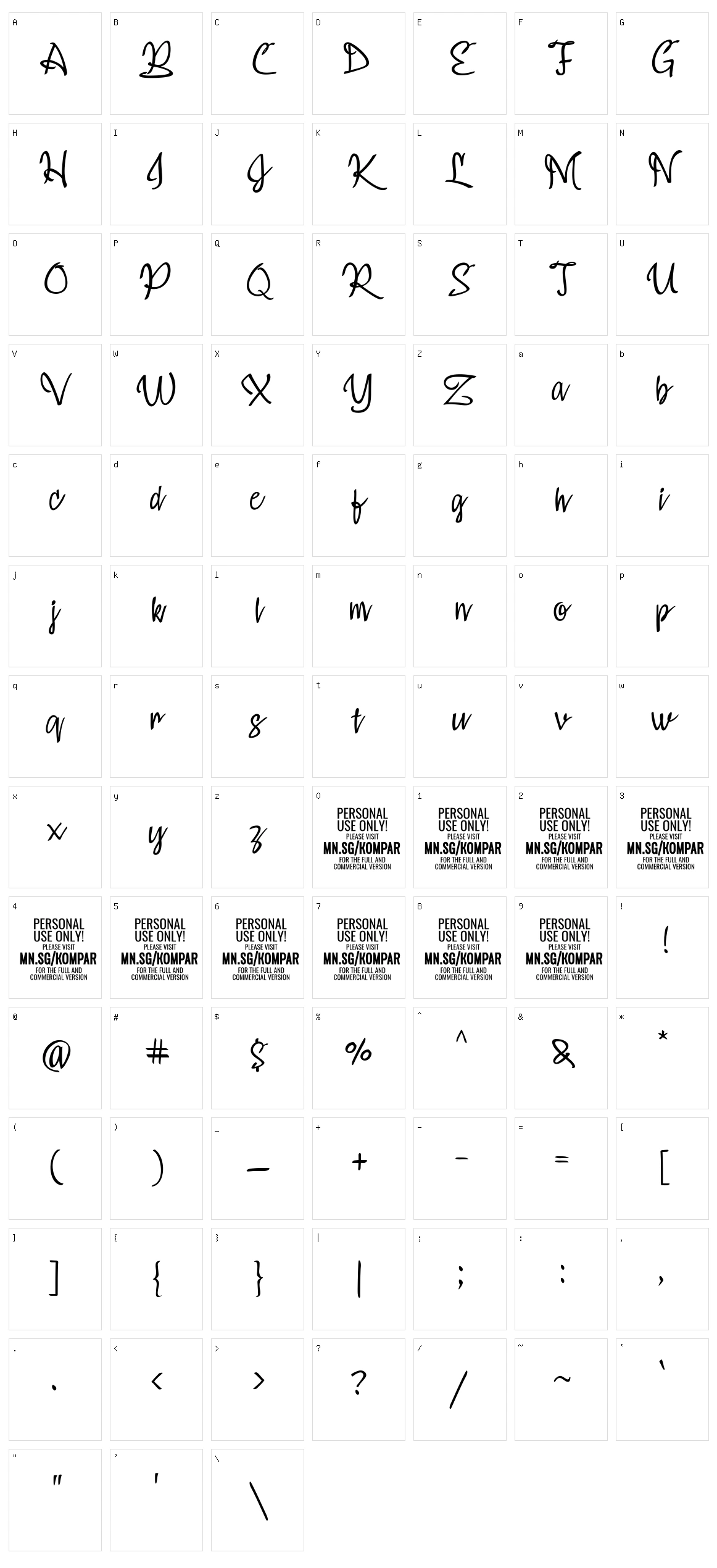
Kompar is a hand-drawn brush typeface family, designed and created during 2018 by Rodi de Asis and Måns Grebäck.
It has a confident script style, with movements inspired by the brushstrokes of watercolor.
As a high-quality font, this typeface comes in five complimentary weights:
Kompar Thin, Kompar Light, Kompar Medium, Kompar Bold and Kompar Black.
The font contains a wide range of characters and support for hundreds of languages.